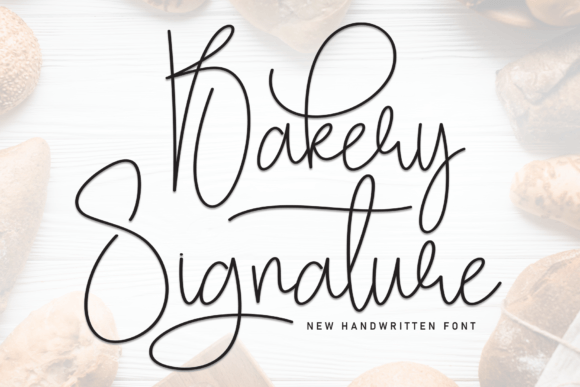
Bakery Signature Font and Bakery Signature: A Comprehensive Guide
In the world of bakeries, a signature font and bakery signature are essential elements that can make or break a brand’s identity. A well-designed bakery signature font can elevate a bakery’s brand, making it more recognizable and memorable to customers. In this article, we will explore the world of bakery signature fonts and bakery signatures, providing you with a comprehensive guide on how to create a stunning brand identity for your bakery.
What is a Bakery Signature Font?
A bakery signature font is a custom-designed font that represents a bakery’s brand identity. It’s a unique typography style that sets a bakery apart from its competitors and makes its brand more recognizable. A well-designed bakery signature font can be used on various marketing materials, such as business cards, menus, packaging, and website.
A bakery signature font can be a combination of different font styles, such as script, serif, or sans-serif. It can also include decorative elements, like flourishes or swashes, to give it a more personalized touch. The key is to create a font that reflects the bakery’s personality, values, and brand aesthetic.
Importance of Bakery Signature Font
A bakery signature font is crucial for several reasons:
- Brand Recognition: A unique bakery signature font helps customers recognize a bakery’s brand and differentiate it from competitors.
- Professionalism: A custom-designed font gives a bakery a professional and polished look, making it more appealing to customers.
- Consistency: Using a consistent font across all marketing materials helps to create a cohesive brand image.
- Emotional Connection: A well-designed font can evoke emotions and create a connection with customers, making them more loyal to the brand.
What is Bakery Signature?
A bakery signature, also known as a logo or branding element, is a visual representation of a bakery’s brand identity. It’s a unique symbol, icon, or design that represents the bakery’s values, products, and services. A bakery signature can be a combination of text and graphics, such as a logo, icon, or a custom-designed element.
A bakery signature is essential for building a strong brand identity. It helps customers recognize a bakery’s brand and creates an emotional connection with them. A well-designed bakery signature can be used on various marketing materials, such as business cards, menus, packaging, and website.
Types of Bakery Signatures
There are several types of bakery signatures, including:
- Logo: A logo is a visual representation of a bakery’s brand identity. It can be a combination of text and graphics.
- Icon: An icon is a small symbol or graphic that represents a bakery’s brand.
- Custom-designed element: A custom-designed element is a unique design that represents a bakery’s brand identity.
- Typography-based logo: A typography-based logo is a logo that uses a custom-designed font to represent a bakery’s brand.
How to Create a Bakery Signature Font
Creating a bakery signature font requires a combination of creativity, technical skills, and attention to detail. Here are the steps to create a bakery signature font:
- Define your brand identity: Before creating a font, it’s essential to define your bakery’s brand identity, including its values, personality, and aesthetic.
- Choose a font style: Choose a font style that reflects your bakery’s brand identity. You can choose from various font styles, such as script, serif, or sans-serif.
- Customize the font: Customize the font by adding decorative elements, such as flourishes or swashes.
- Test the font: Test the font on various marketing materials, such as business cards, menus, and packaging.
How to Create a Bakery Signature
Creating a bakery signature requires a combination of creativity, technical skills, and attention to detail. Here are the steps to create a bakery signature:
- Define your brand identity: Before creating a bakery signature, it’s essential to define your bakery’s brand identity, including its values, personality, and aesthetic.
- Choose a design style: Choose a design style that reflects your bakery’s brand identity. You can choose from various design styles, such as logo, icon, or custom-designed element.
- Design the signature: Design the bakery signature using a combination of text and graphics.
- Test the signature: Test the signature on various marketing materials, such as business cards, menus, and packaging.
Best Practices for Bakery Signature Font and Bakery Signature
Here are some best practices for creating a bakery signature font and bakery signature:
- Keep it simple: Keep the font and signature simple and easy to recognize.
- Be consistent: Use the font and signature consistently across all marketing materials.
- Make it unique: Make the font and signature unique and reflective of your bakery’s brand identity.
- What is a bakery signature font? A bakery signature font is a custom-designed font that represents a bakery’s brand identity.
- What is a bakery signature? A bakery signature is a visual representation of a bakery’s brand identity.
- How do I create a bakery signature font? You can create a bakery signature font by defining your brand identity, choosing a font style, customizing the font, and testing it.
- How do I create a bakery signature? You can create a bakery signature by defining your brand identity, choosing a design style, designing the signature, and testing it.